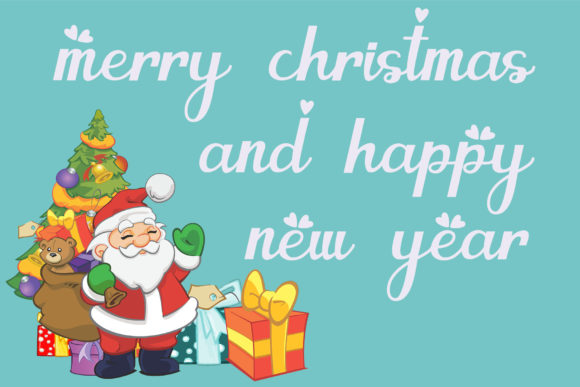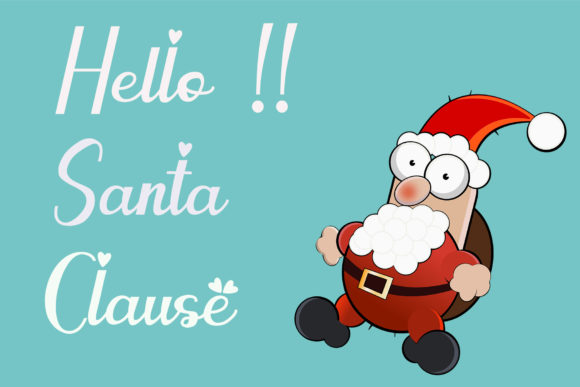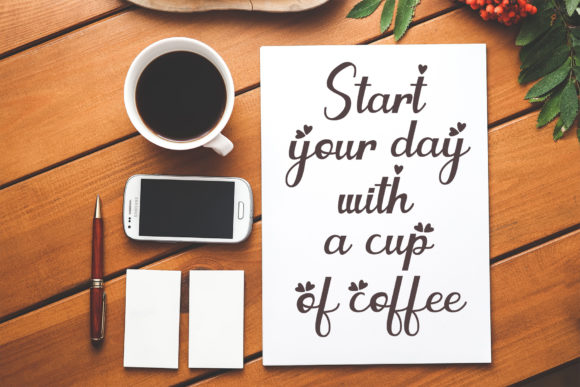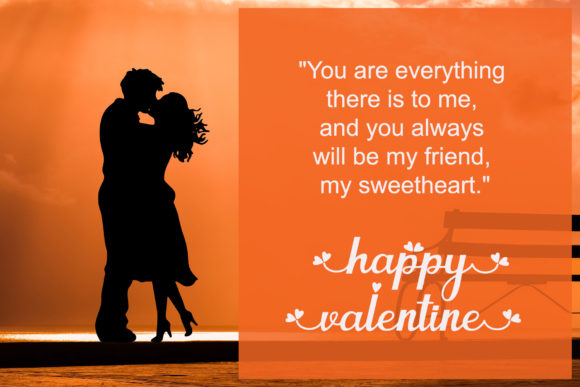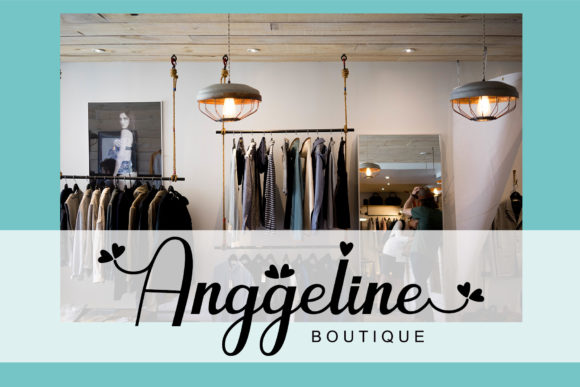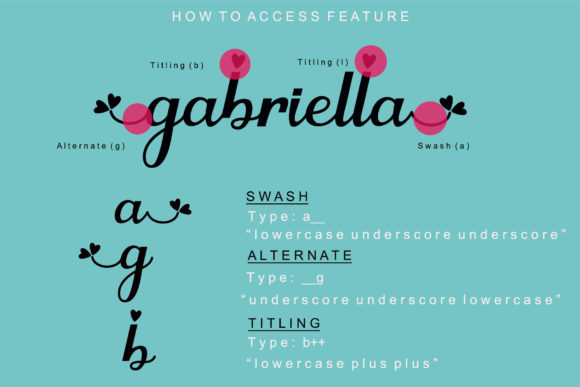
Discover the Elegance of Gabriella Font: A Romantic Calligraphy Typeface
Are you a designer or crafter looking for a font that exudes romance and sophistication? Look no further than Gabriella Font, a beautiful and versatile calligraphy typeface that’s perfect for a wide range of creative projects. In this article, we’ll explore the features and benefits of Gabriella Font, and show you how it can elevate your designs to the next level.
What is Gabriella Font?
Gabriella Font is a romantic and cursive calligraphy typeface that’s designed to add a touch of elegance to any project. Its characters dance along the baseline, creating a sense of movement and fluidity that’s sure to capture the eye. With its beautiful swashes and glyphs, Gabriella Font is the perfect choice for designers and crafters who want to add a touch of sophistication to their work.
What Can I Use Gabriella Font For?
One of the best things about Gabriella Font is its versatility. It’s a font that can be used for a wide range of purposes, including:
- Logos: Create a stunning logo for your business or brand with Gabriella Font.
- Wedding Invitations: Add a touch of romance to your wedding invitations with this beautiful calligraphy font.
- Headings: Use Gabriella Font to create eye-catching headings for your blog posts, articles, or social media graphics.
- T-shirts: Create custom t-shirts with Gabriella Font for a unique and stylish look.
- Letterhead: Elevate your business correspondence with Gabriella Font.
- Signage: Use Gabriella Font to create eye-catching signs for your business or event.
- Labels: Add a touch of elegance to your product labels with Gabriella Font.
- News: Use Gabriella Font to create stunning newspaper or magazine headlines.
- Posters: Create eye-catching posters for your business or event with Gabriella Font.
- Badges: Use Gabriella Font to create custom badges for your business or event.
What Makes Gabriella Font Special?
So what makes Gabriella Font so special? Here are just a few features that set it apart:
- PUA Encoded: Gabriella Font is PUA encoded, which means you can access all of the glyphs and swashes with ease. This makes it easy to customize your text and add your own unique touches.
- Romantic and Cursive: Gabriella Font has a romantic and cursive feel that’s perfect for creating elegant and sophisticated designs.
- Versatile: Gabriella Font can be used for a wide range of purposes, from logos and headings to wedding invitations and signage.
Tips for Using Gabriella Font
Here are a few tips for using Gabriella Font in your designs:
- Experiment with Swashes: Gabriella Font comes with a range of swashes and glyphs that you can use to customize your text. Experiment with different combinations to find the look that works best for your design.
- Pair with Other Fonts: Gabriella Font pairs well with a range of other fonts, from serif and sans serif fonts to script fonts. Experiment with different pairings to find the look that works best for your design.
- Use for Headlines: Gabriella Font is perfect for headlines and titles. Use it to create eye-catching headings that draw the reader in.
Gabriella Font is a beautiful and versatile calligraphy typeface that’s perfect for designers and crafters who want to add a touch of elegance to their work. With its romantic and cursive feel, PUA encoding, and range of uses, Gabriella Font is a font that’s sure to become a staple in your design toolkit. So why not give it a try and see the difference it can make in your designs?